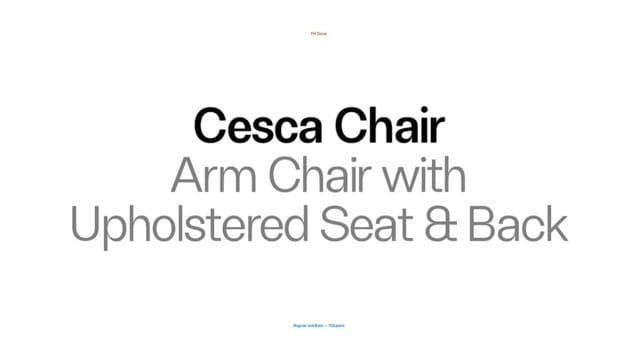
FH Oscar Font
FH Oscar Font is a sans-serif typeface that exudes sophistication and simplicity. This font is a modern typeface designed in a sans serif-grotesque structure. It has been created by taking inspiration from the leading Grotesk fonts of Akzidenz Grotesk and Breite Grotesk structures that have been designed at the end of the 19th century and today it is reputed to be a tool of modern design understanding. FH Oscar is designed to give results in both screens and editorial designs.